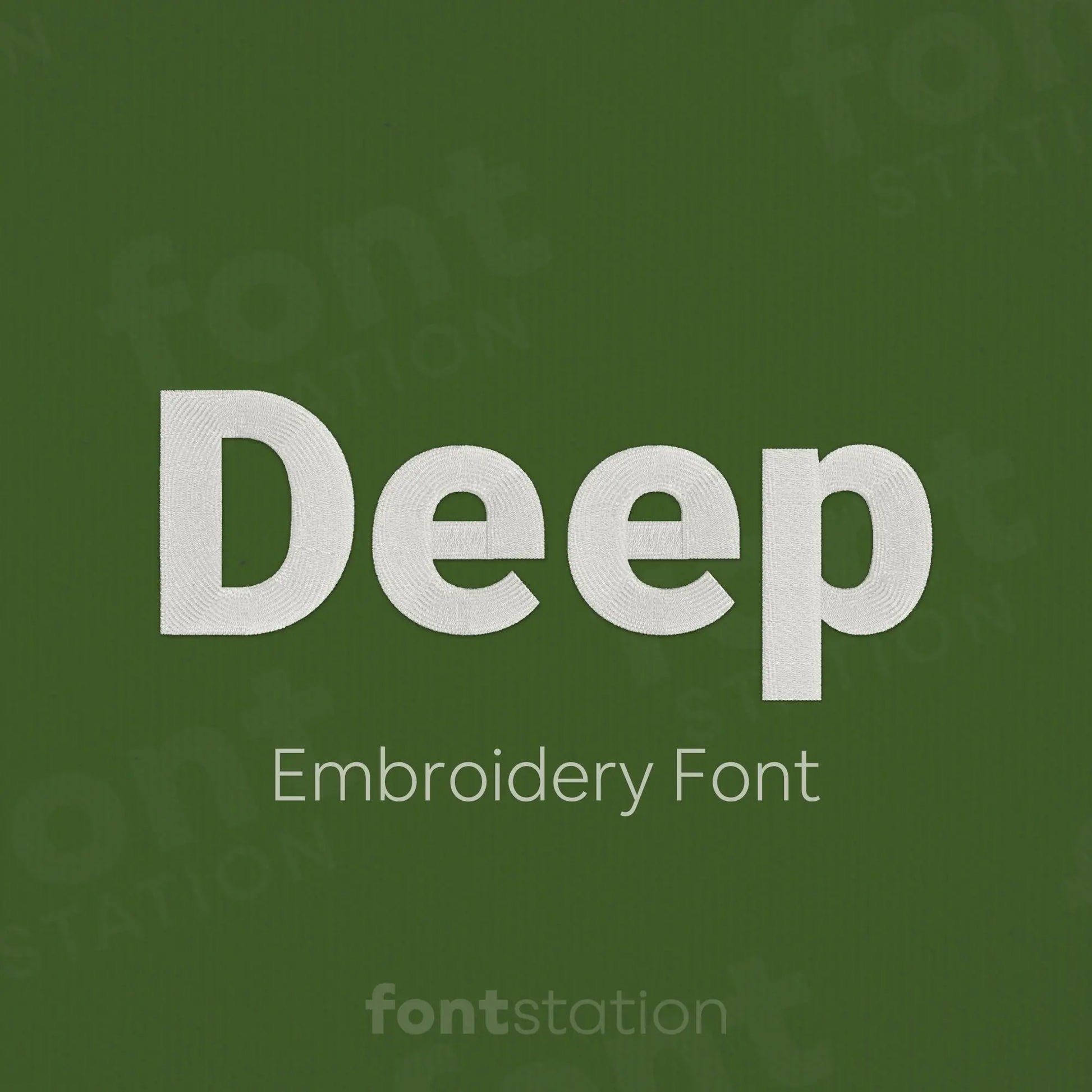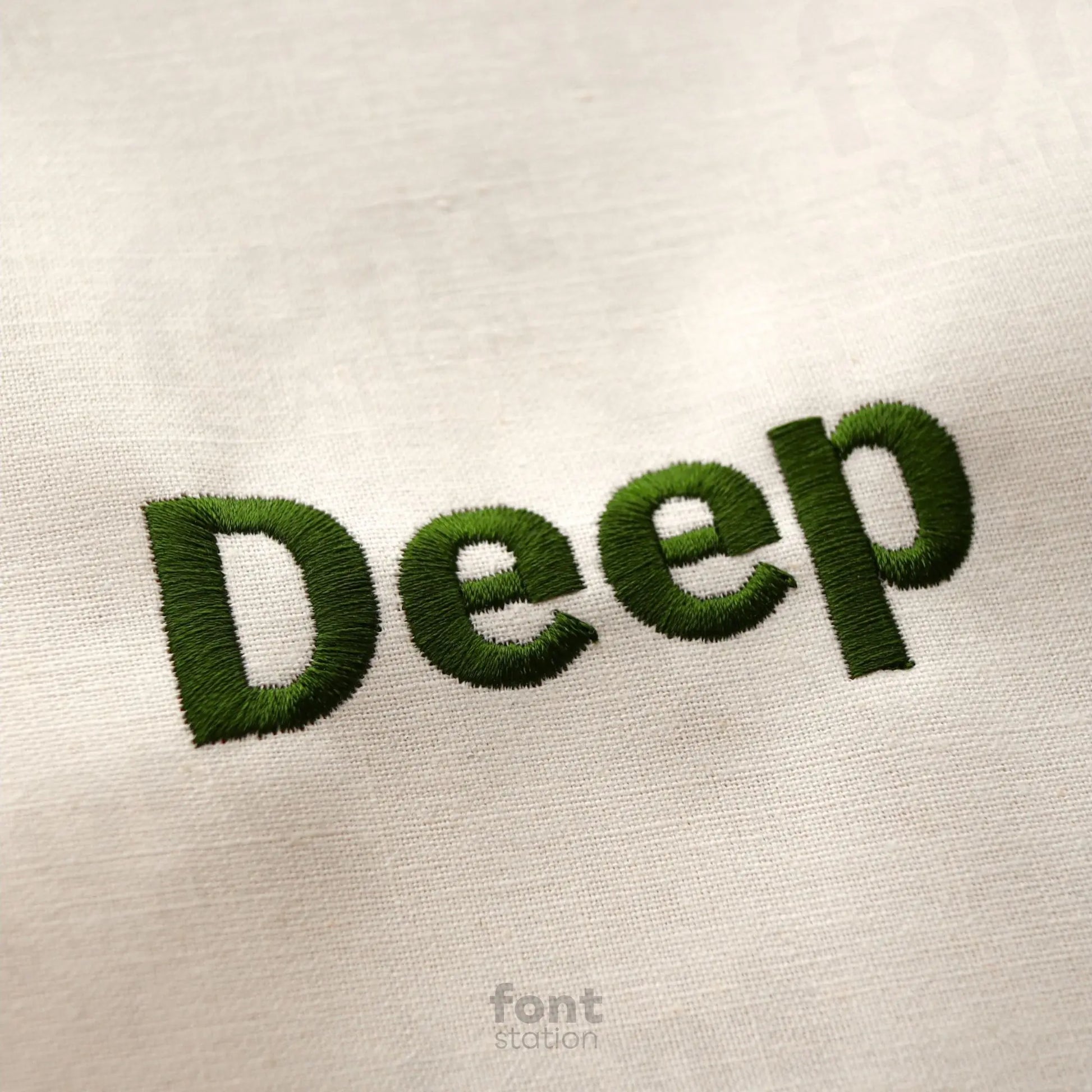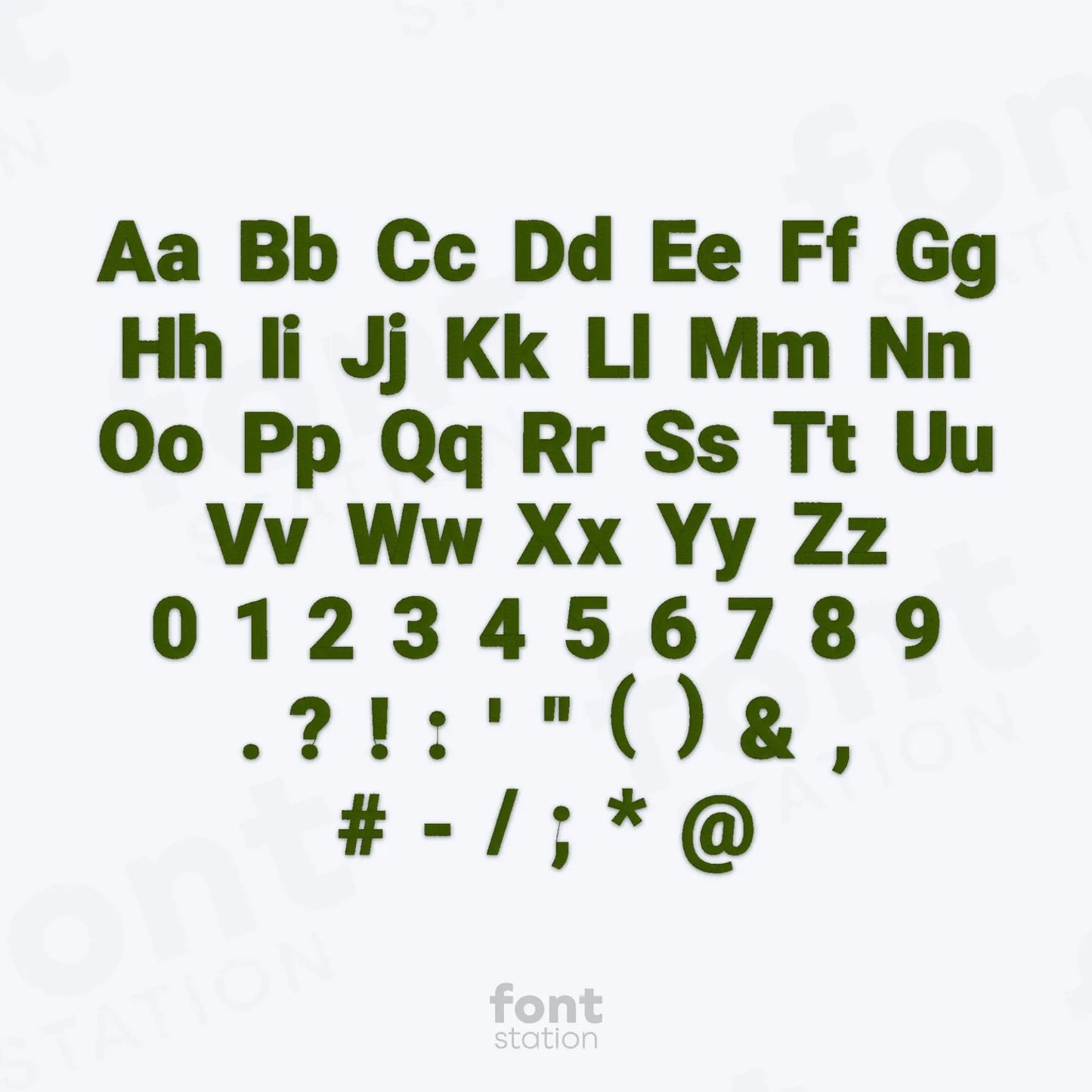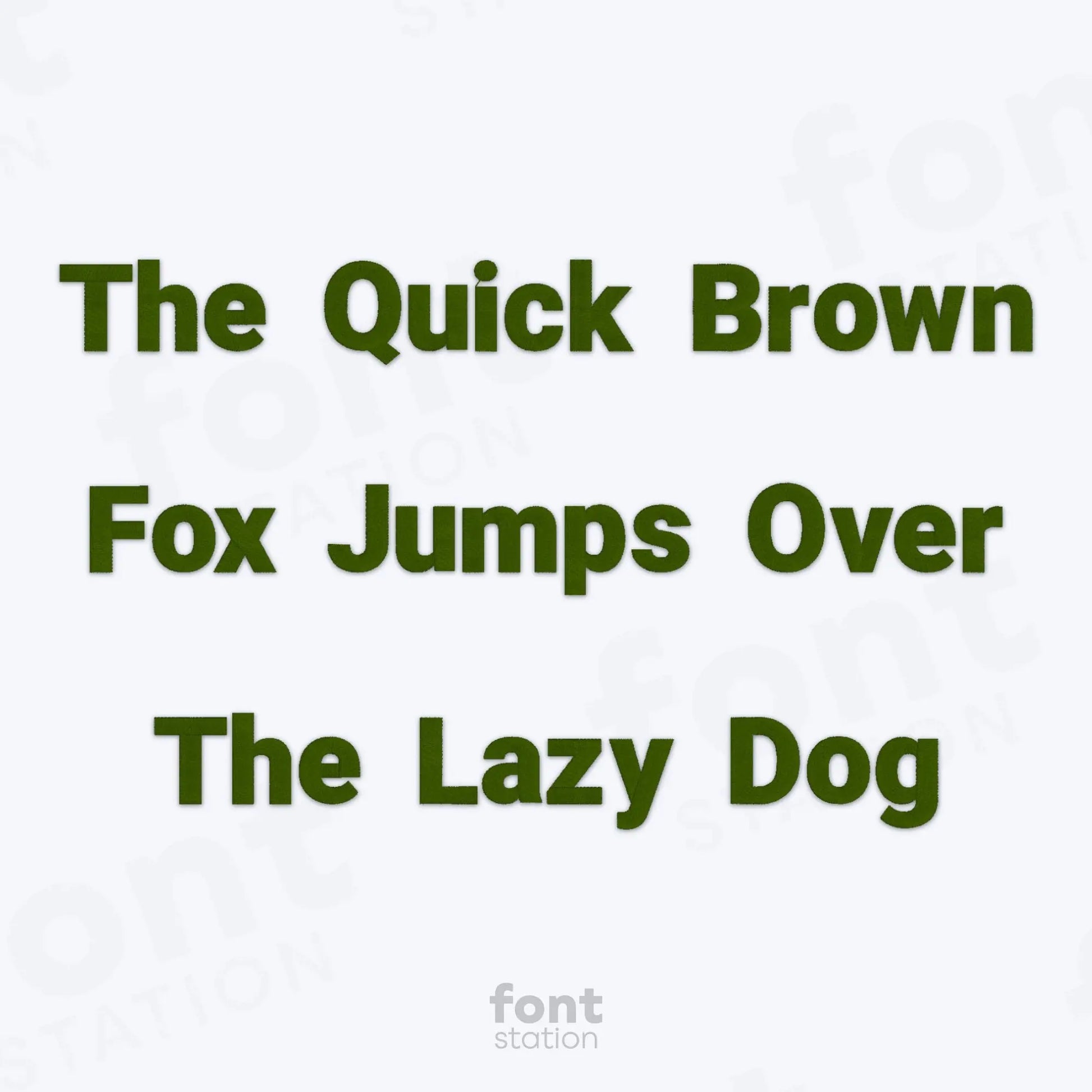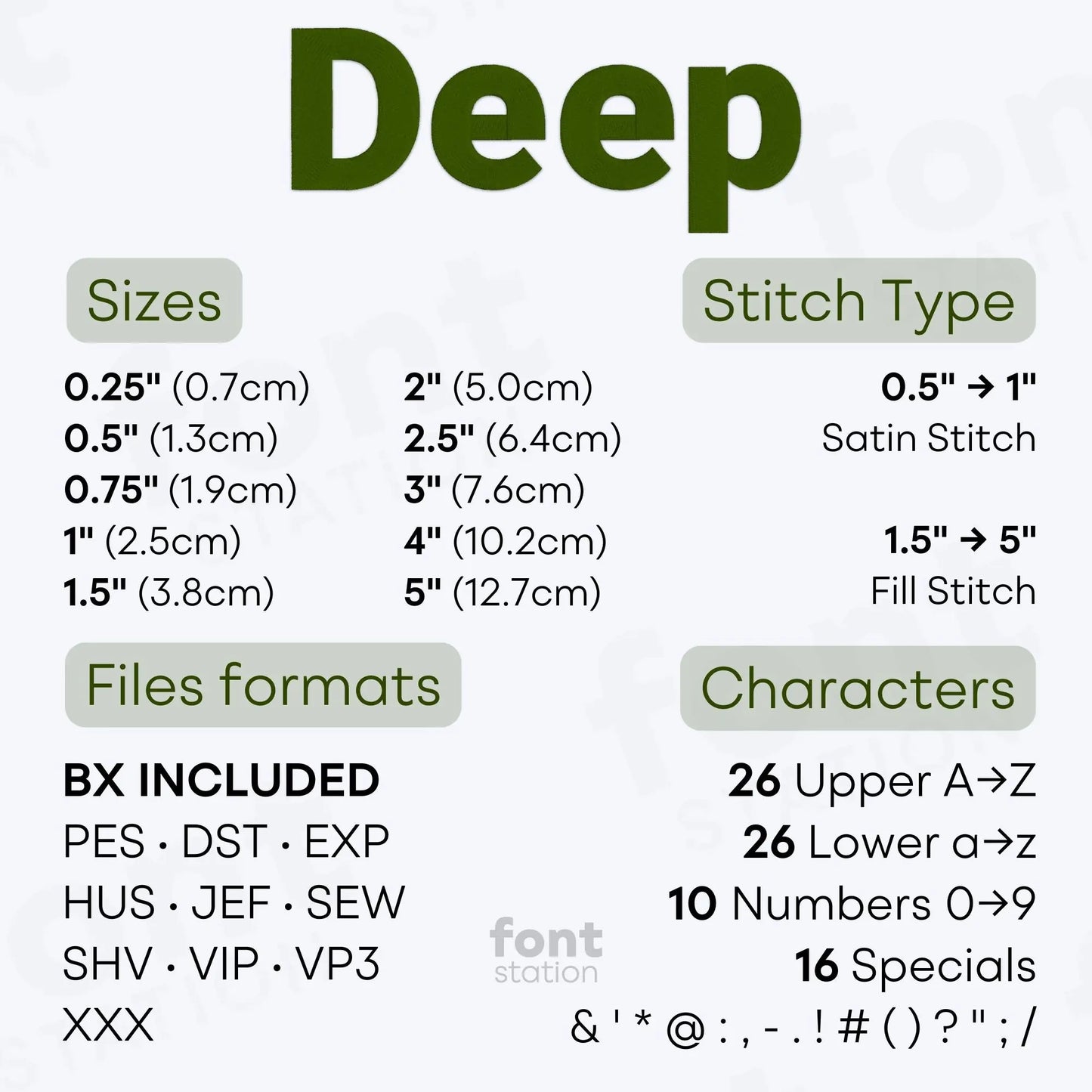
Deep Embroidery Font
Our Deep embroidery font features a bold block alphabet, perfect to stitch strong, clean letters on any embroidery machine. Great for custom projects and rugged designs that stand out.
About the Deep Embroidery Font
The Deep embroidery font delivers a bold, block-style alphabet perfect for standout embroidery projects.
Designed with clean, solid lines, the Deep embroidery font offers a professional block lettering style that's ideal for custom bags, patches, and outdoor-inspired gear. This machine-ready embroidery alphabet includes high-quality letters in popular formats like BX, PES, DST, JEF, EXP, VP3, HUS, and more, compatible with most embroidery machines. Whether you're stitching a name or bold phrase, these strong letters stitch smoothly and make your design stand out.